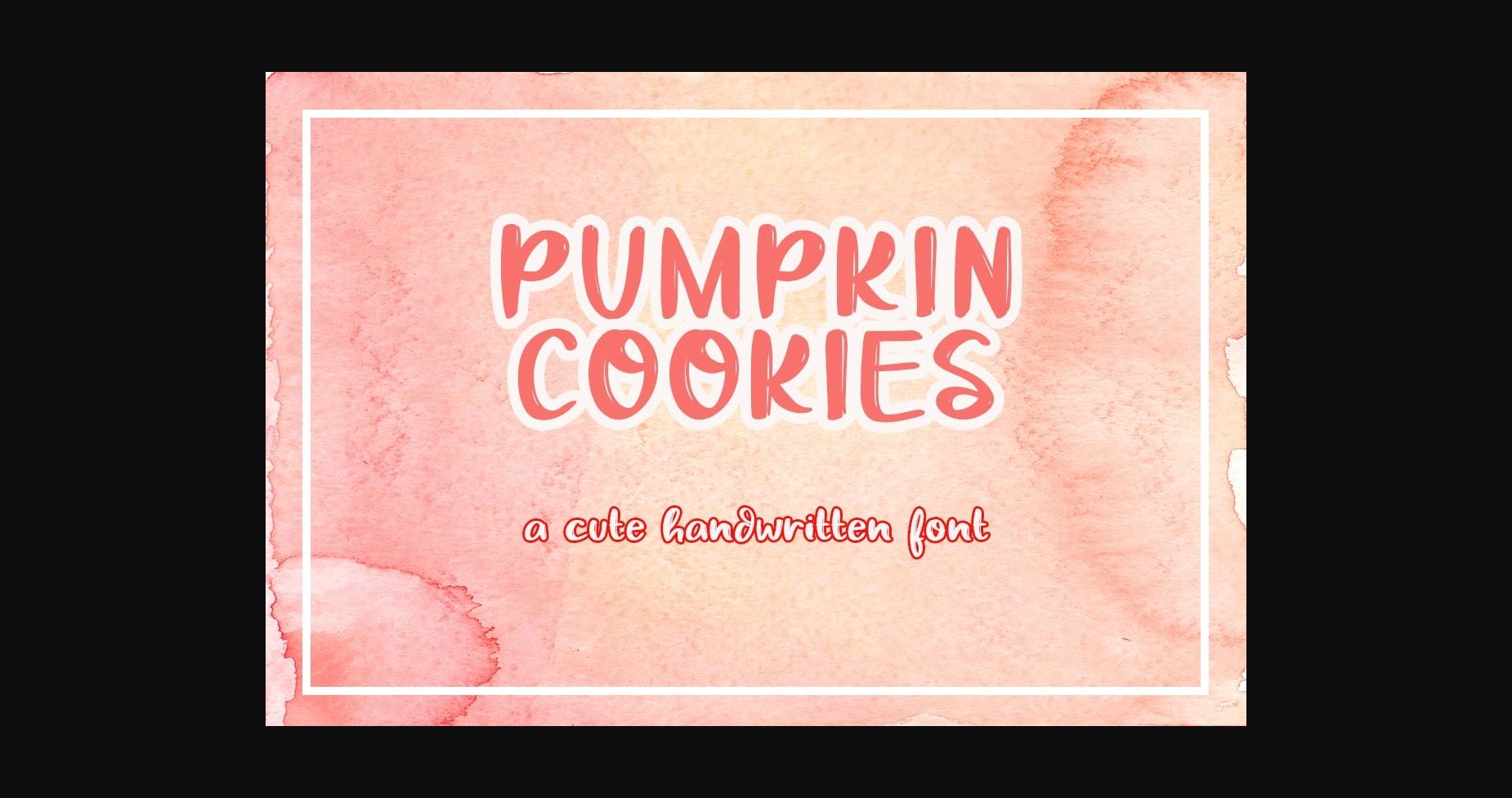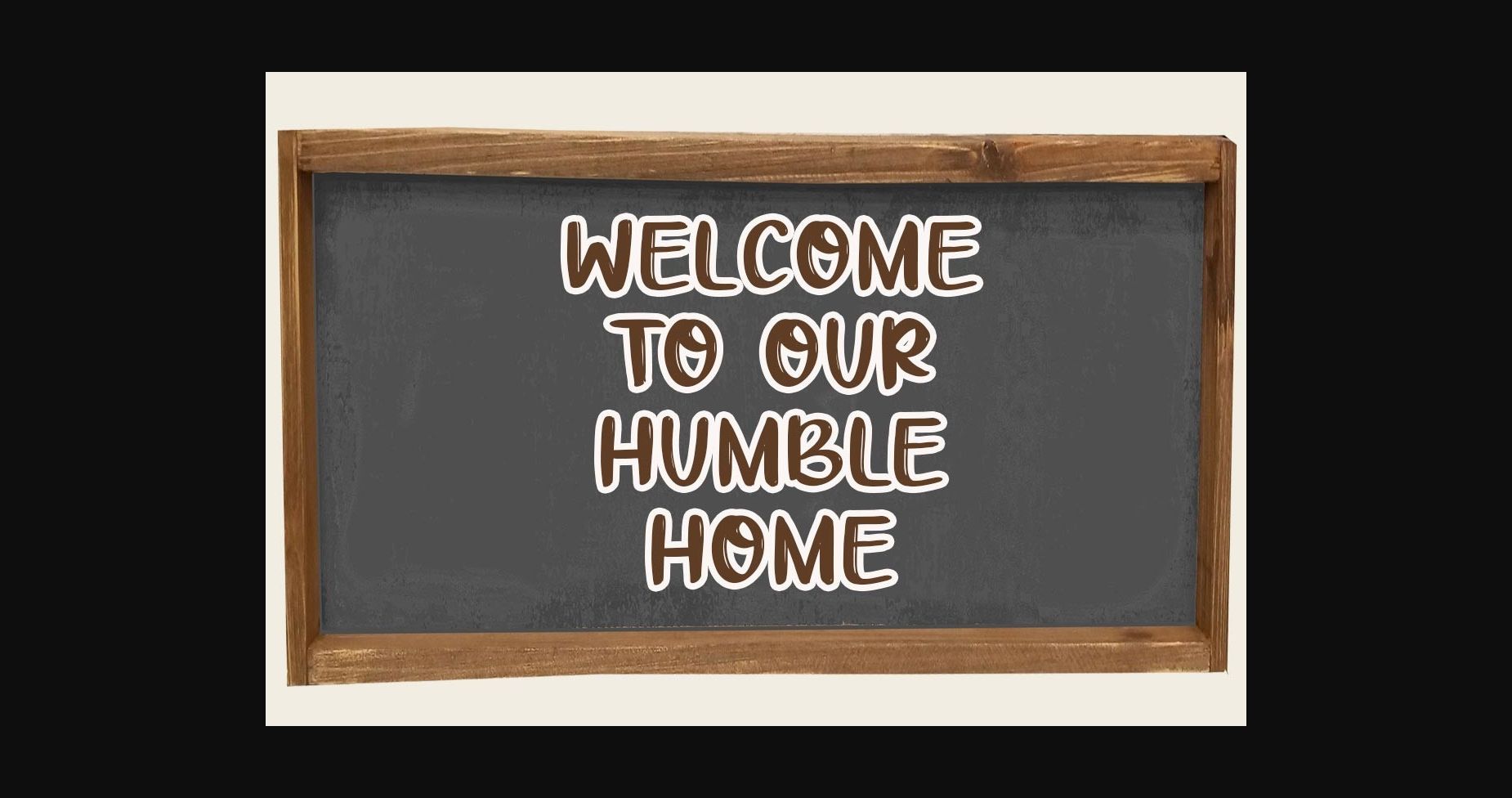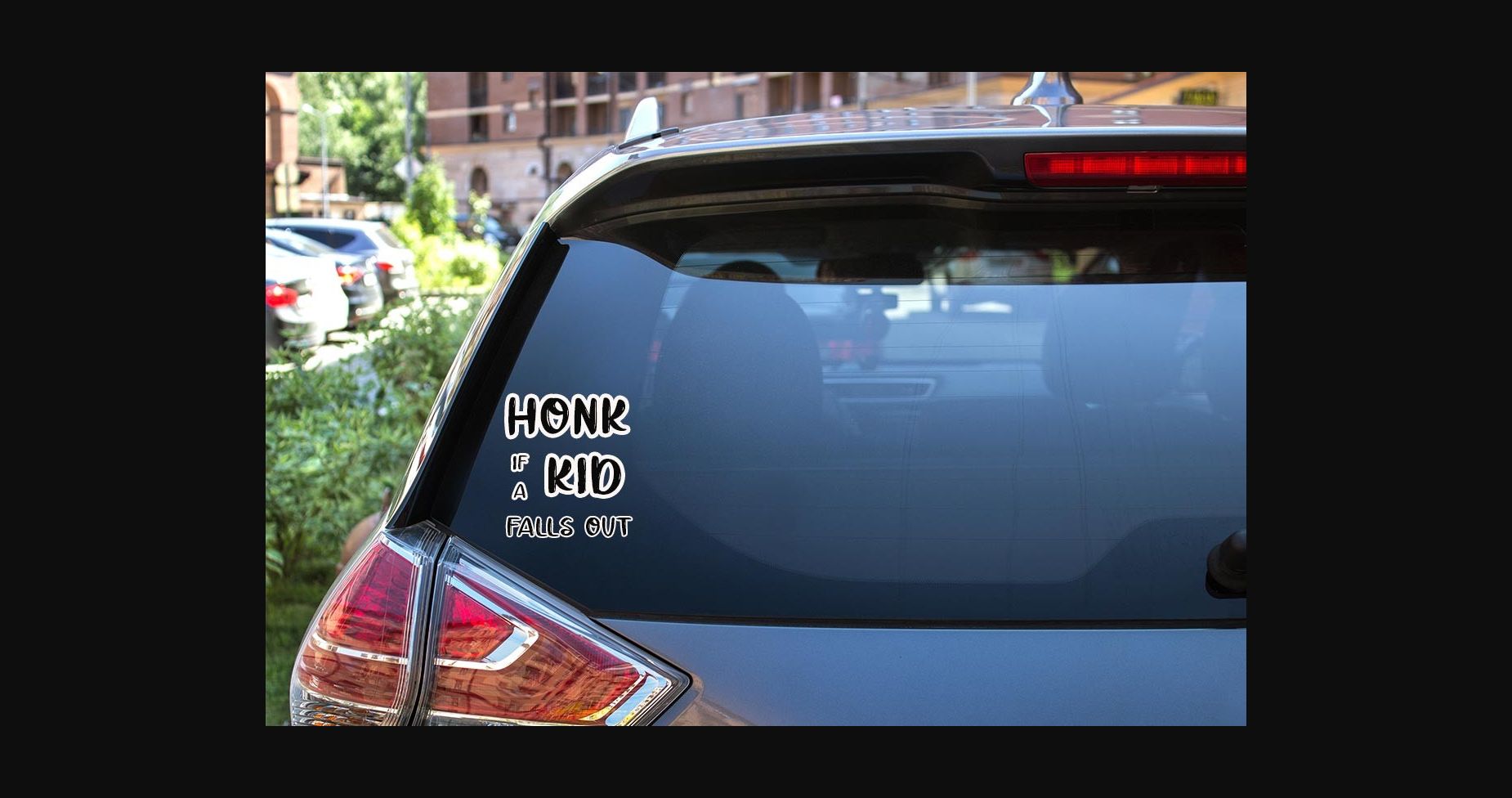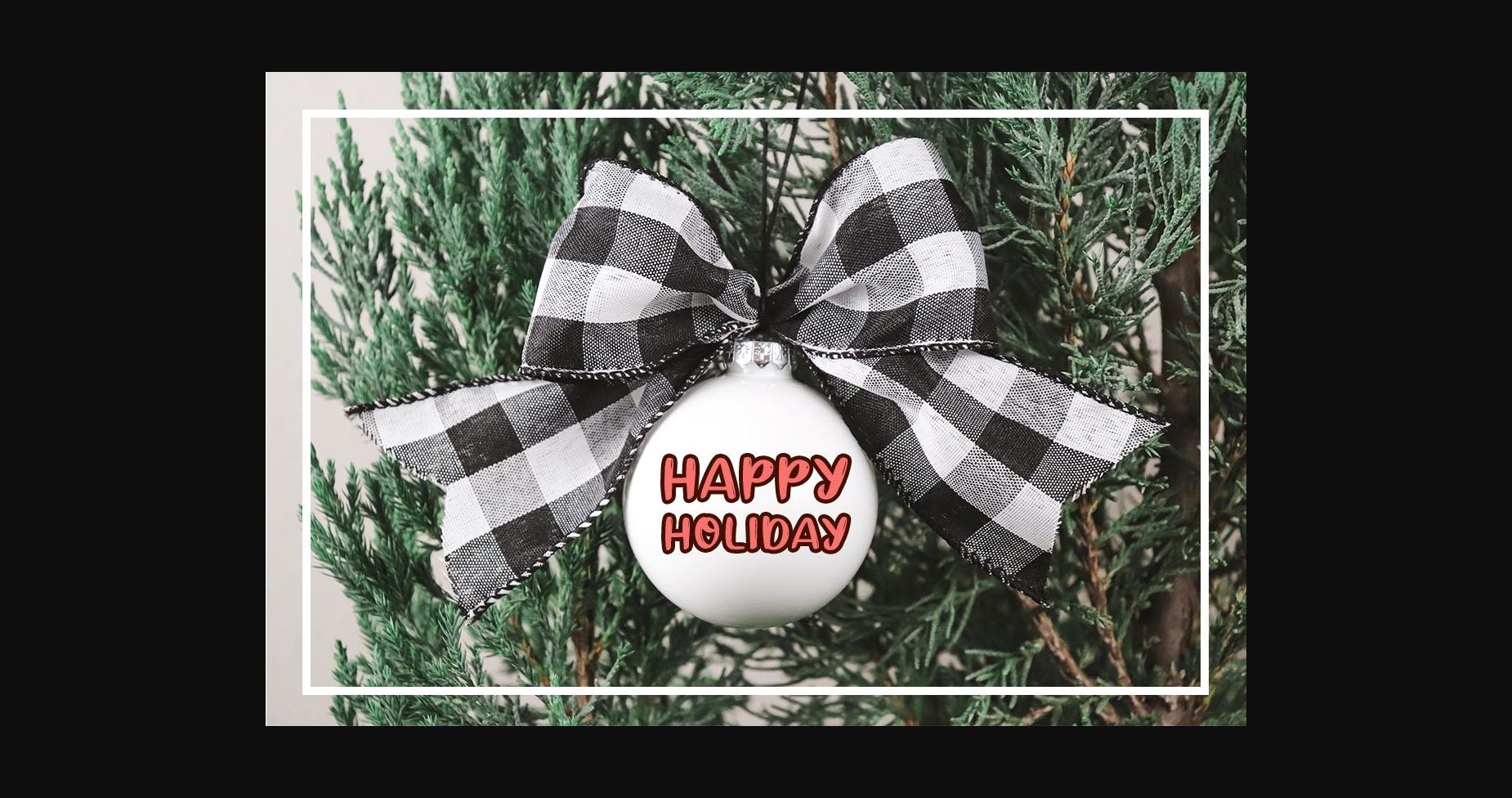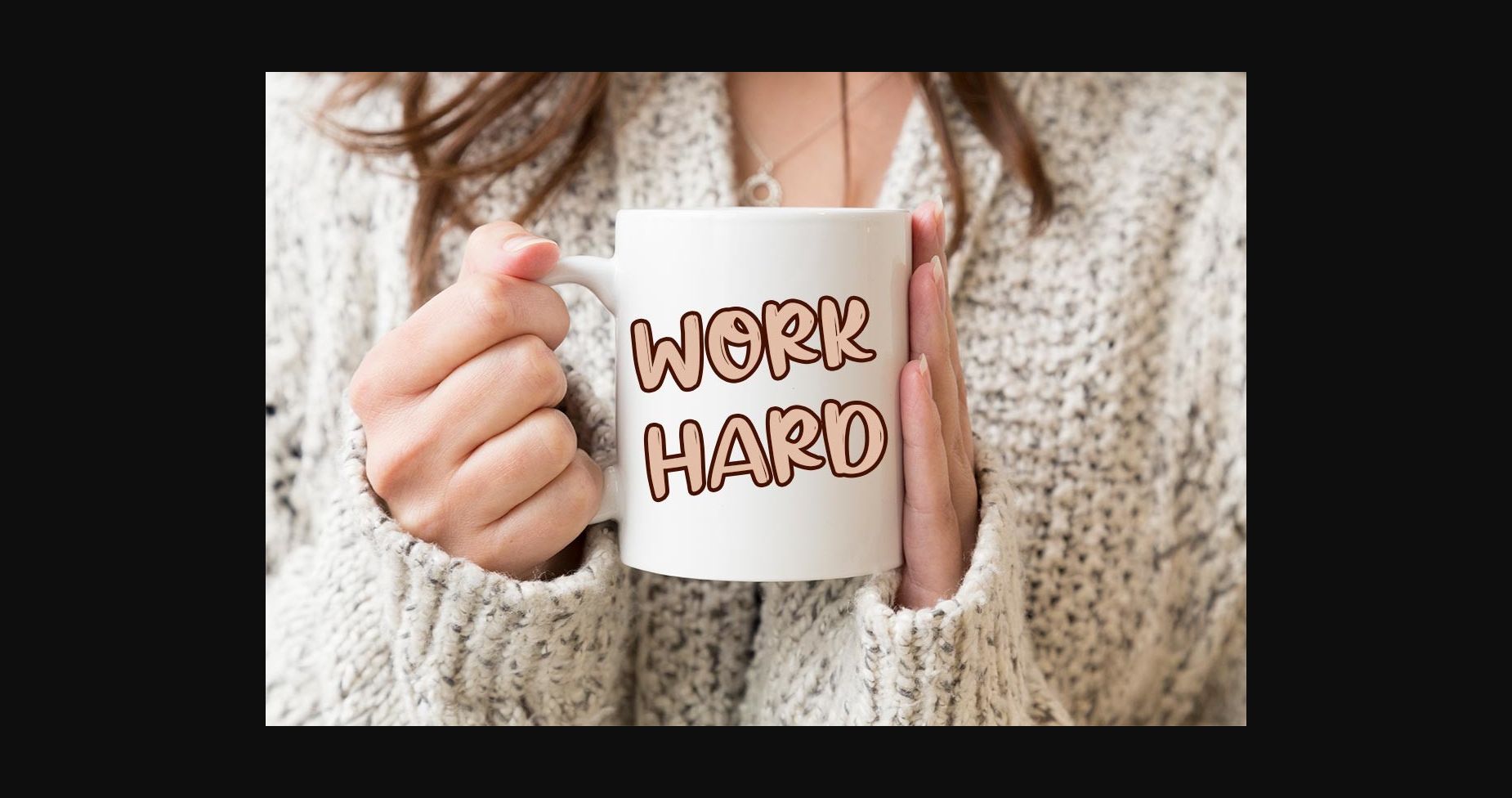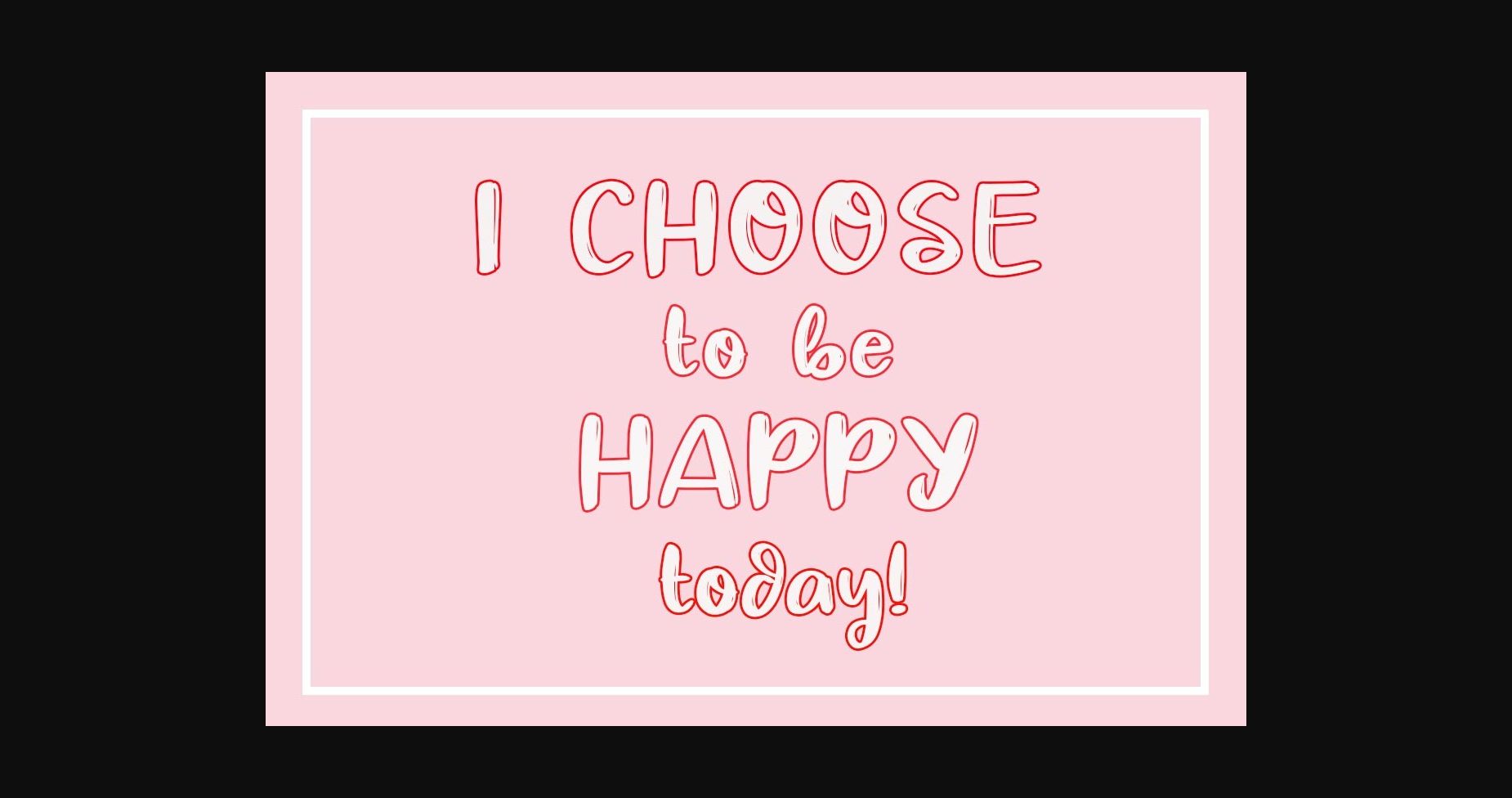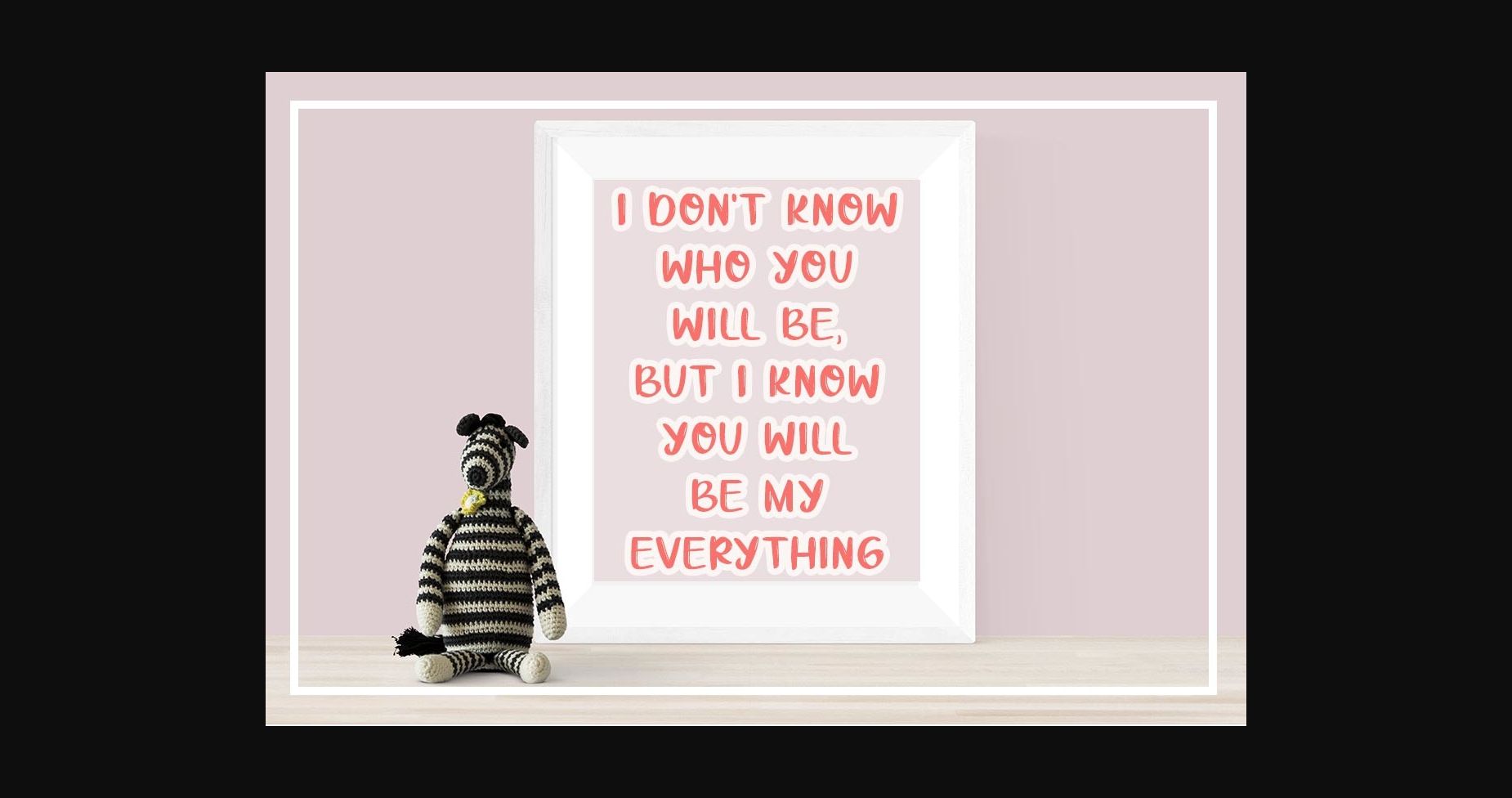
About Pumpkin Cookies Font
Pumpkin Cookies is a cute and casual handwritten font.
It is great for crafters and graphic artists alike. It is suitable for book texts, documentation, business reports, business correspondence, magazines, newspapers, posters, advertisements, multimedia, and corporate design.